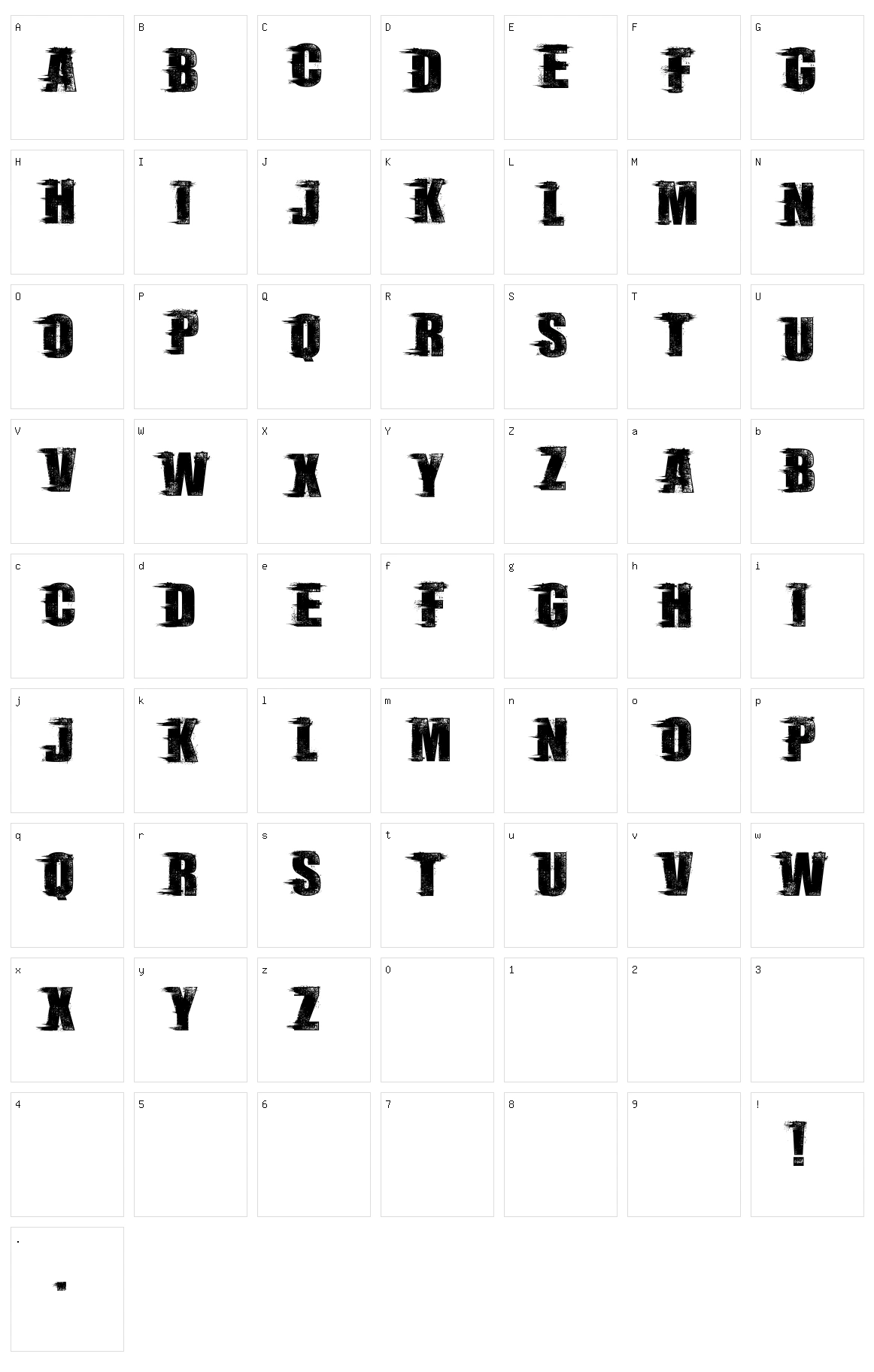
The free font Rebel Scene is carefully designed by CconceptLab, showcasing a thoughtful balance of creativity and usability and falls under the Distorted font style. When you download the ZIP file, it contains only 12972.11 KB of font files, making it lightweight and quick to download. Please review the license details below to understand permitted usage and distribution rights. If license information is not available, we recommend using this font for personal projects only or contacting the author directly for commercial usage permissions.